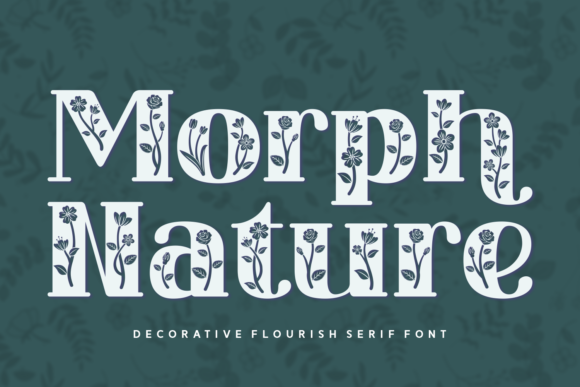
Unleash your creativity with Morph Nature, an exquisite decorative font designed to captivate and inspire. Step into a realm of elegance and sophistication as you explore the intricate details and sweeping lines of this enchanting typeface. Morph Nature is more than just a font; it's an artistic statement that brings your designs to life.
Immerse yourself in the world of Morph Nature, where beauty meets functionality. Its captivating style weaves magic into every project, transforming ordinary text into captivating masterpieces. Picture the allure of wedding invitations adorned with Morph Nature's delicate strokes, evoking a sense of timeless romance. Envision stationary art that speaks volumes through its refined aesthetics, leaving a lasting impression on your recipients.
Delve into the digital realm and witness the transformative power of Morph Nature in eye-catching social media posts. Capture the attention of your audience with captivating visuals that dance across the screen, leaving them enthralled and eager for more. Unleash your imagination and craft designs that resonate with emotion and authenticity.
Morph Nature is not just a font; it's an experience. A journey into the realm of creativity, where your ideas take flight and your designs flourish. Its versatility knows no bounds, adapting seamlessly to a myriad of projects, from logos and branding to posters and flyers. Let Morph Nature be your guide as you embark on a creative odyssey, leaving a trail of beauty and inspiration in your wake.